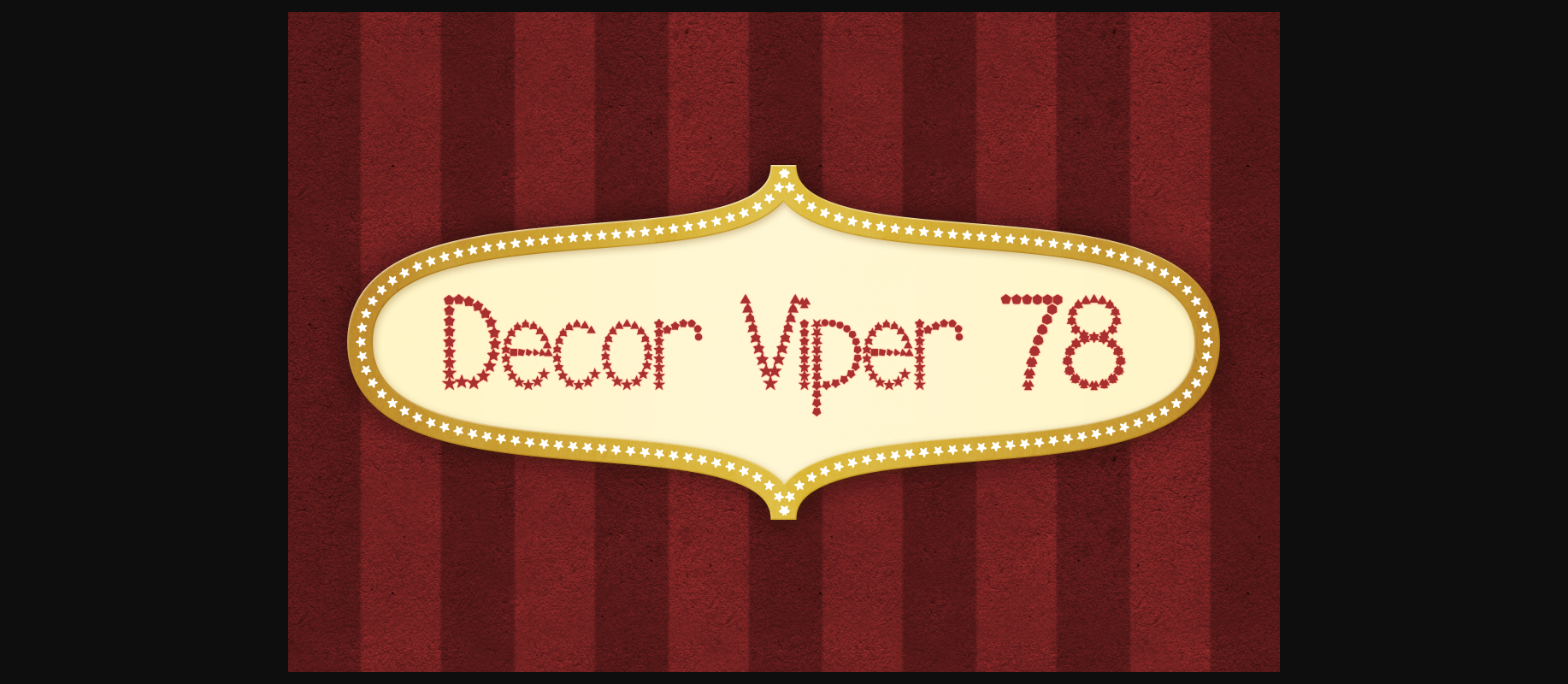
Decor Viper 78 Font
About Decor Viper 78 Font
Decor Viper 78 is a stunning yet restrained decorative font, ideal for a wide range of typographic project types that need a vibe of decorum and style.